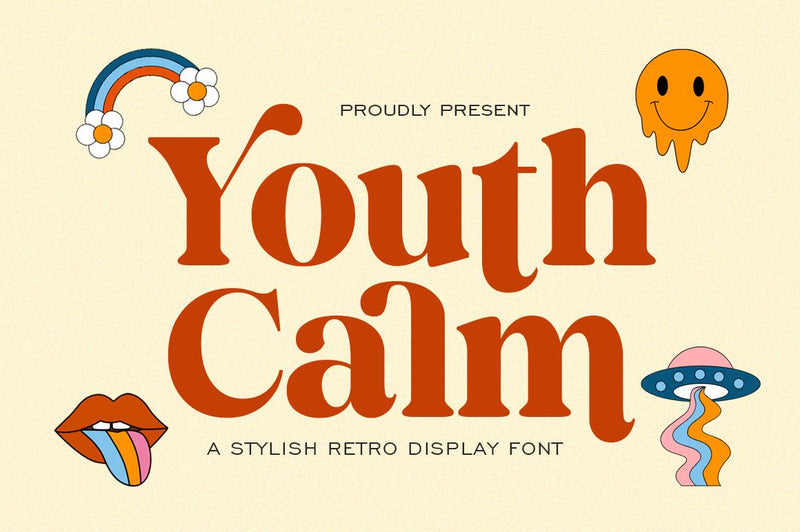
Youth Calm - Display Retro Font
Youth Calm is a stylish, retro serif display font. Its funk and groove will definitely come in handy when you need to create some relaxed, laid-back designs. With elegance playful line this font perfect for headline, poster film, food promotion, magazine, logo labels or any type of advertising purpose. This font support Multilingual Languages.